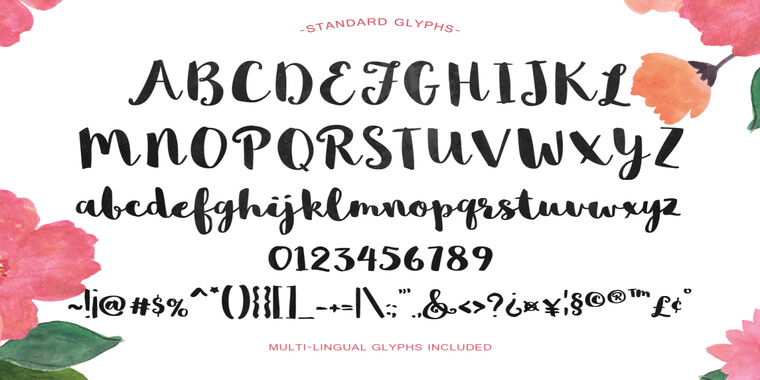
Introducing Sophia, a handwritten script style. This font is nice, bold, and a bit worn-out with a handwritten, brush-style look. Mats-Peter Forss used this font to create the “Never Stop Believing” poster.